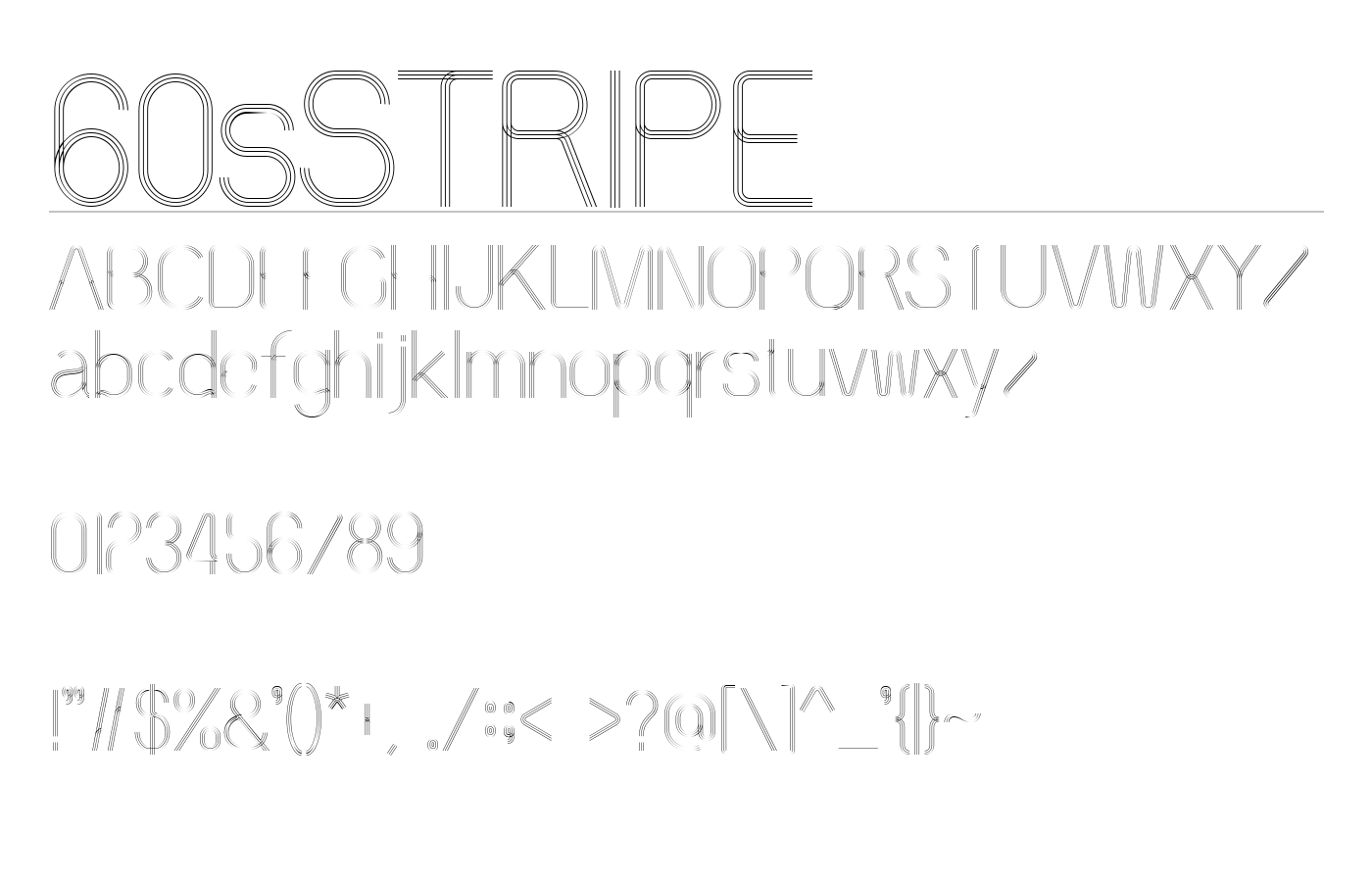
60sSTRIPE is a modern, sans serif font with a distinctive striped design that gives it a light, airy feel. Its tall, narrow letterforms and clean, geometric lines create a sleek, futuristic vibe reminiscent of 1960s retro aesthetics, making it ideal for eye-catching headlines, fashion branding, and stylish posters. This font's unique striped stroke adds a playful yet sophisticated touch, perfect for projects seeking a blend of vintage charm and contemporary elegance.
60sSTRIPE Font
About 60sSTRIPE Font
| Font family | 60sSTRIPE Font |
| Designer | greenegg |